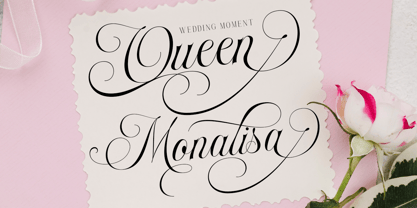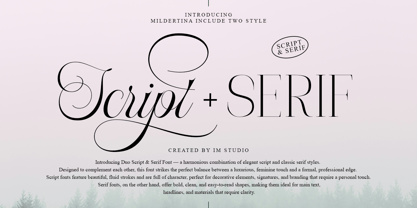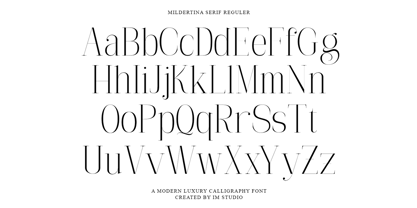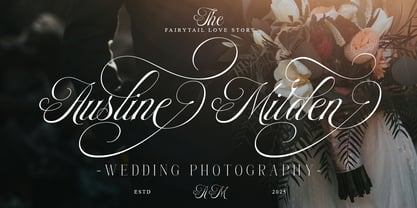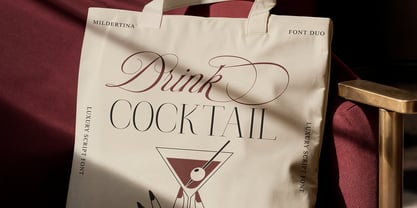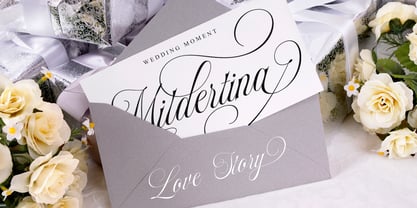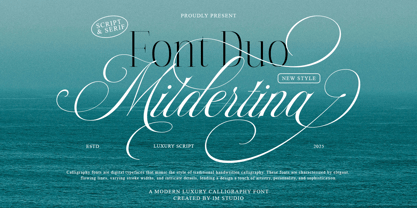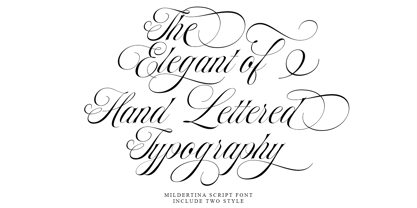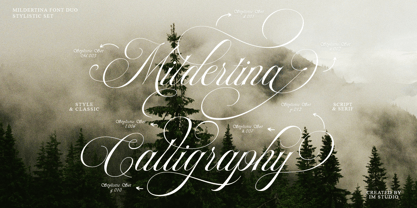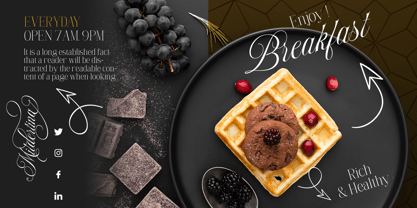
Mildertina Script & Serif
by IM Studio
Introducing Mildertina Script & Serif Font Duo - the perfect blend of Timeless script and Classic serif fonts. These fonts have been meticulously designed from the ground up to harmonize, so you don't have to worry about finding the ideal font pairing for your branding or print projects.
Mildertina Script is a clean, cursive calligraphy font based on traditional roundhand script, with a little extra flair for an elegant and stylish modern aesthetic.
Mildertina Serif draws inspiration from nostalgic headline fonts, refined to give you a classic serif that's incredibly versatile and can be used in a variety of projects.
These fonts can be used as strong standalone fonts with a full set of uppercase and lowercase characters, or easily combined for more creative display projects that require a simple, contrasting yet complementary font pairing.
Mildertina font duo offers four unique versions: Serif: Regular, Expanded, Condensed, Slant Script: Regular, Italic
Designers: Ikhsan Maulana
Current Foundry: IM Studio